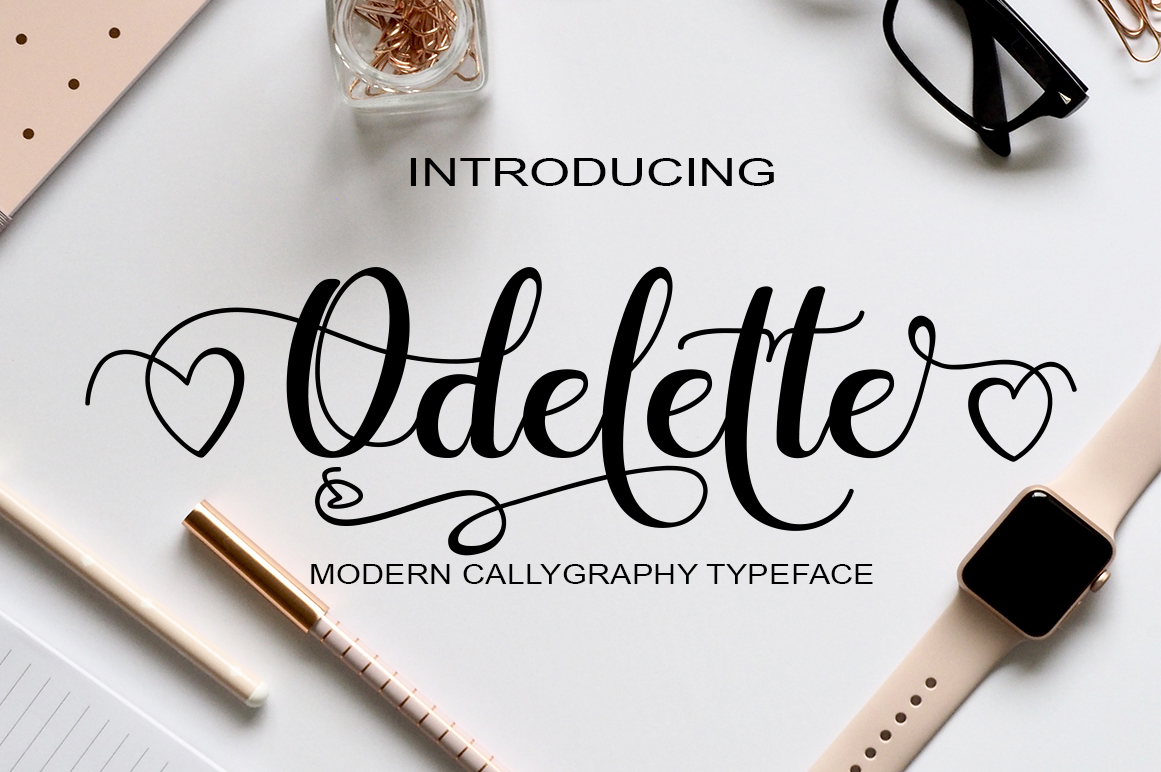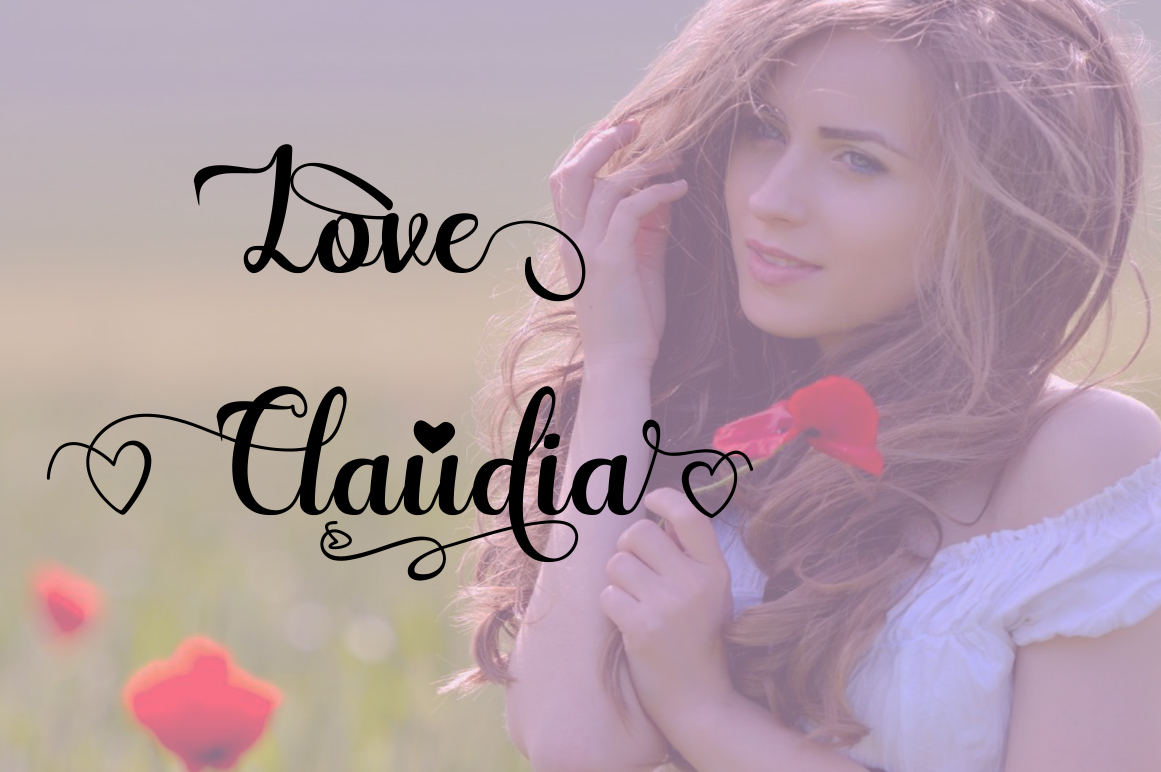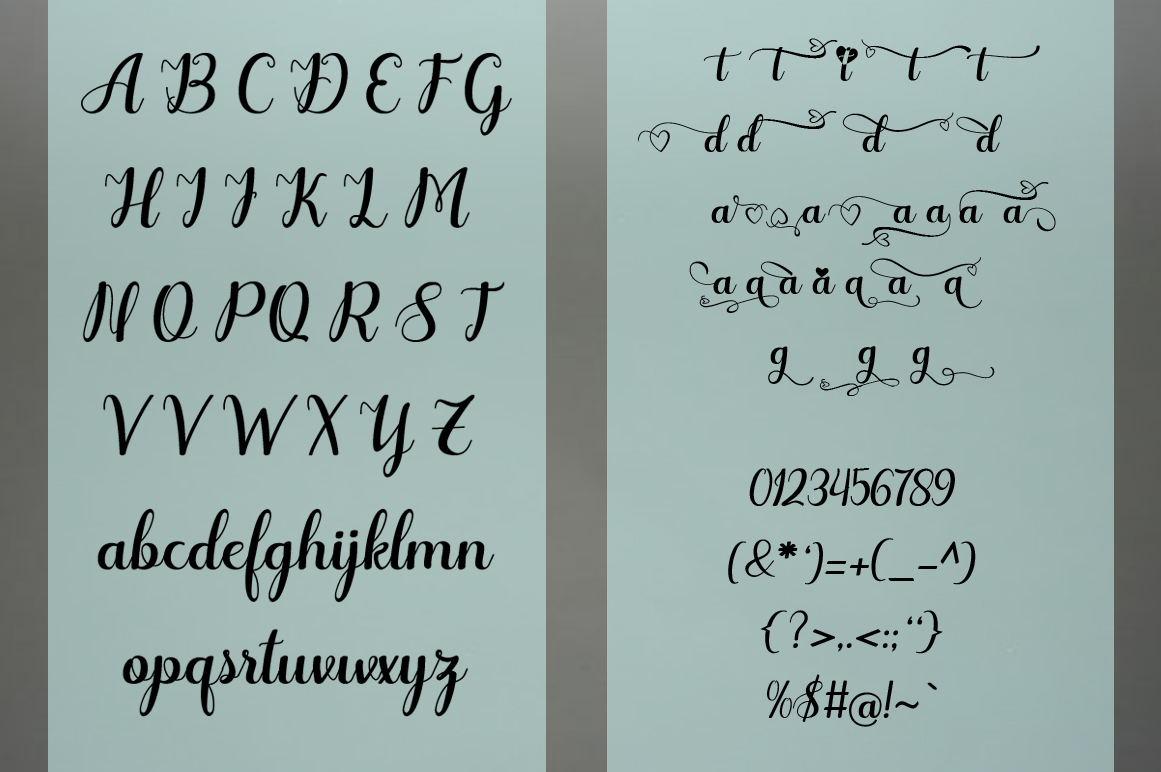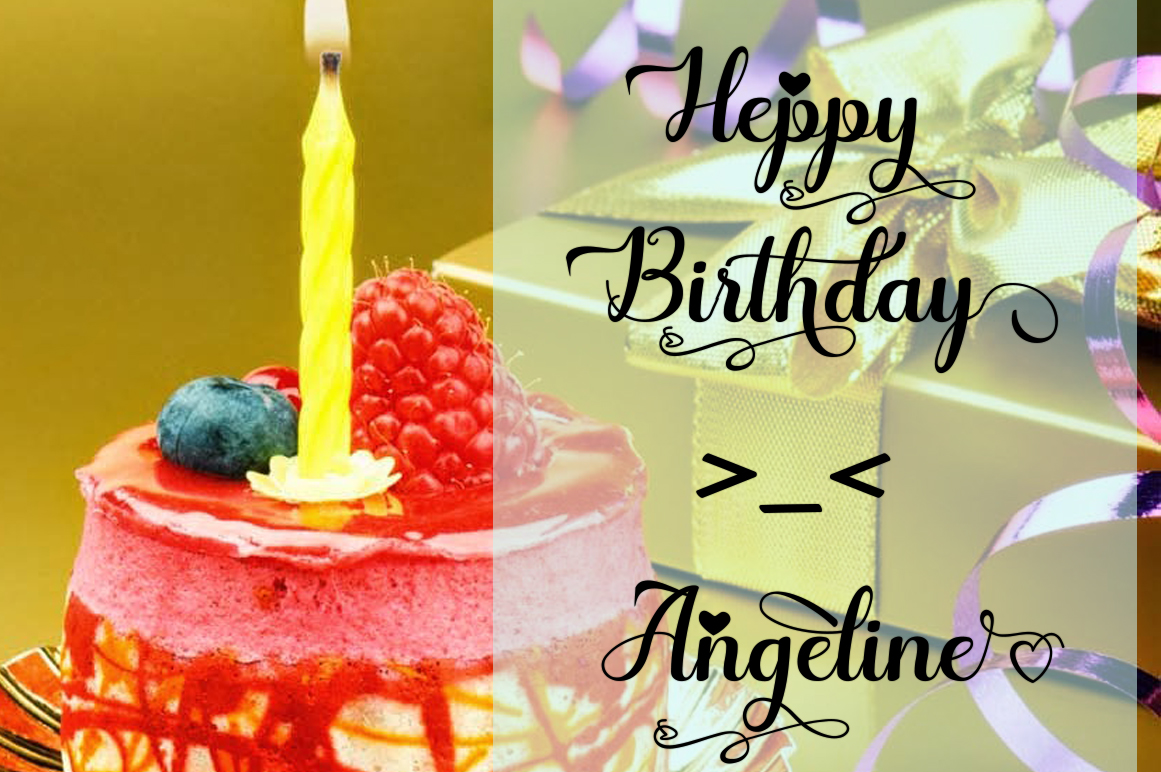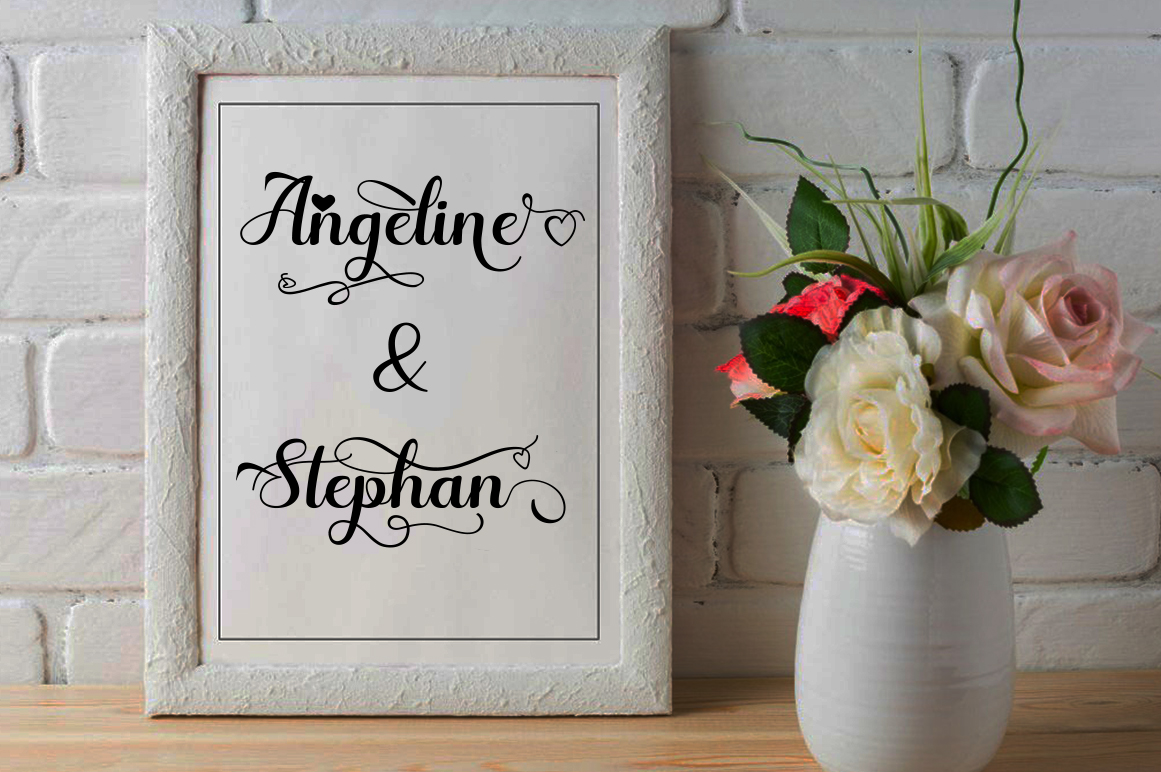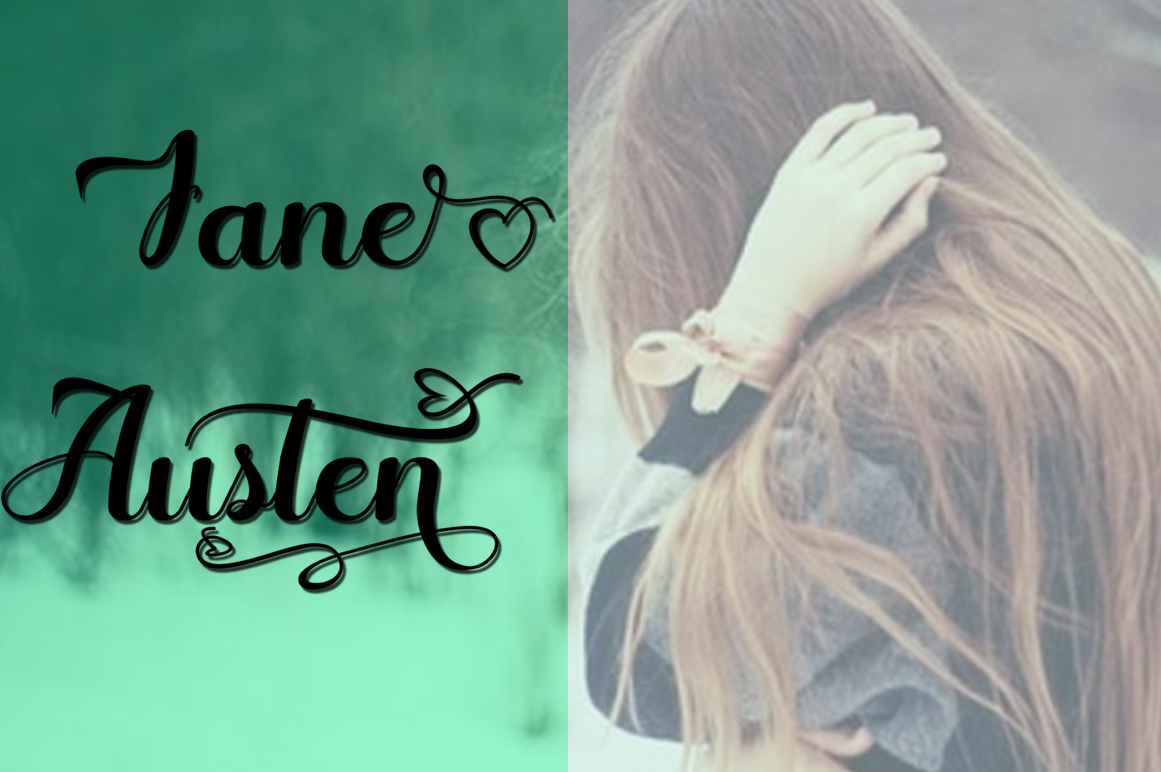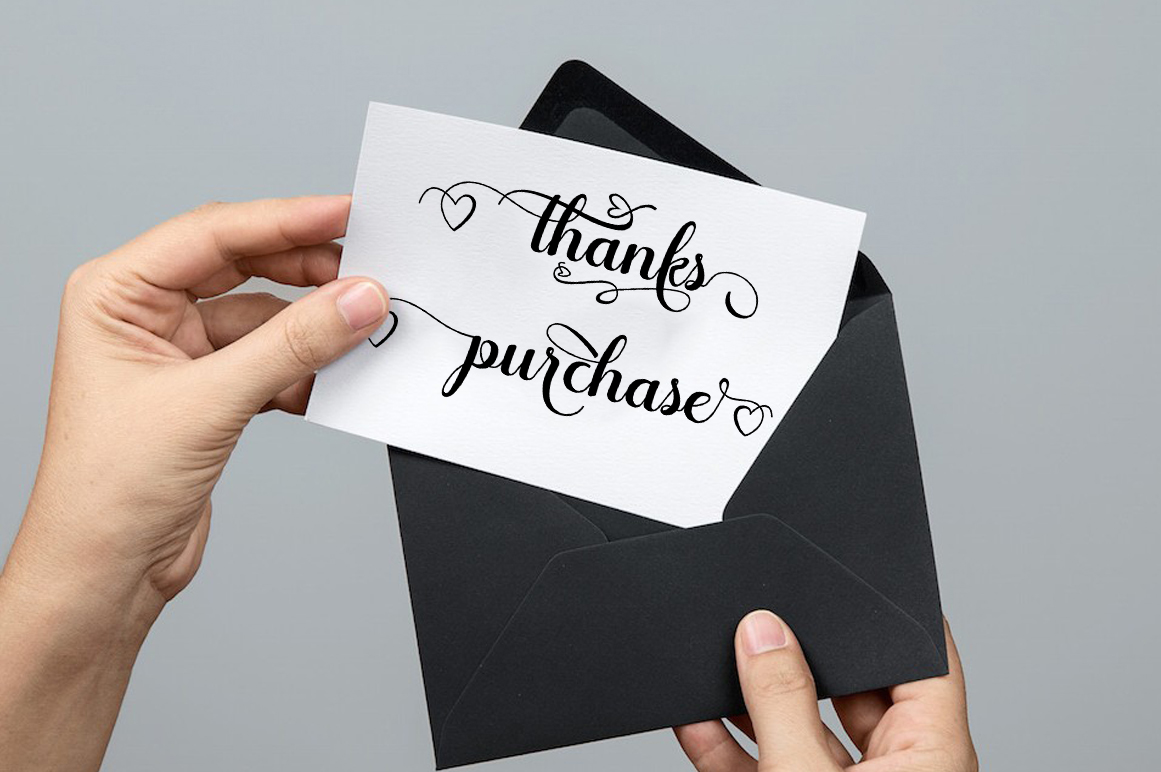
Odelette Script Font
About Odelette Script Font
Odelette is a beautiful and casual script font. This calligraphy style type is perfect for giving your designs a more feminine charm, and come with tons of character alternates so you can find the look that suits your project most.